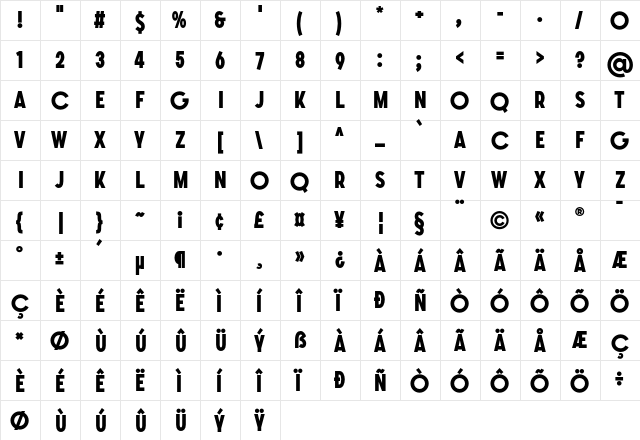
SONGER Grotesque ExtraBold
Design Context for SONGER Grotesque Typeface
SONGER Grotesque is a composed and adaptable typeface that performs quietly and consistently across a wide range of design contexts. Its bold stroke weight gives it real presence on the page.
Pro Tip: Use SONGER Grotesque in both headline and body roles to test its range before committing to a single application.